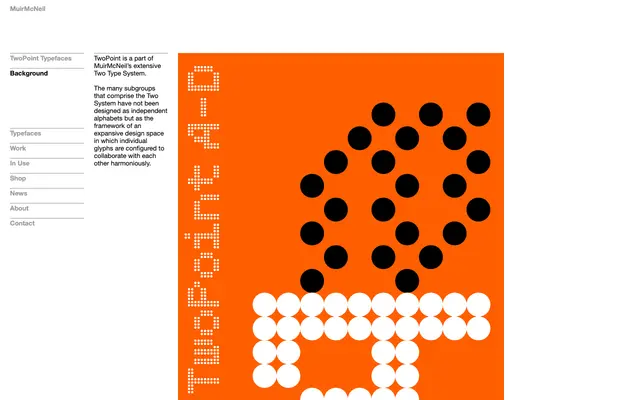
TwoPoint
A dot-grid display typeface built across four structural variants and seven weights as part of MuirMcNeil's broader Two Type System.
Part of MuirMcNeil's expansive Two Type System, TwoPoint constructs letterforms from two-dot stroke units arranged in four distinct configurations: uniform dots, horizontal emphasis, vertical emphasis, and a chequerboard pattern. Each of the four styles runs through seven progressively incremented weights, with no positional changes between steps, maintaining structural coherence across the range. Matching grid backgrounds in corresponding weights and patterns are included, extending the system's use for layered and textural typographic work.
TwoPoint is built on a two-dot stroke system within MuirMcNeil's Two Type System, using configurable dot-grid structures to form letterforms — a display bitmap typeface with systematic, modular construction.